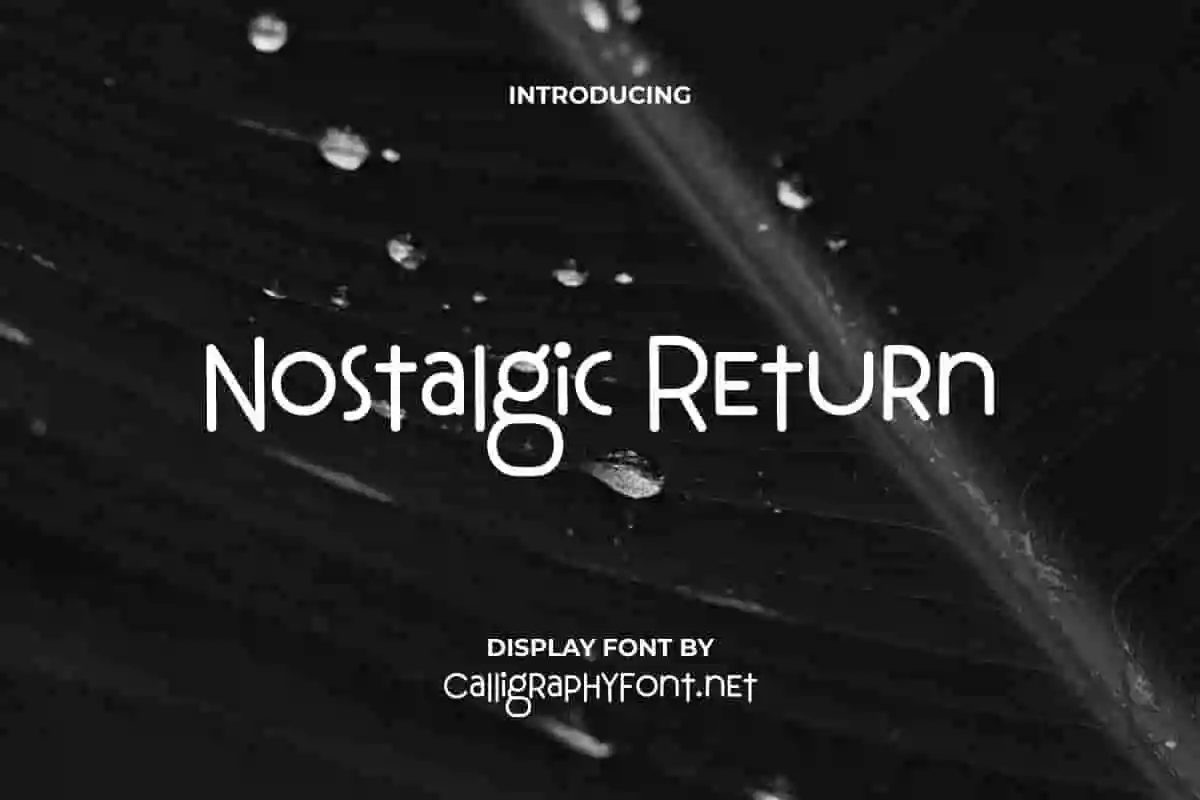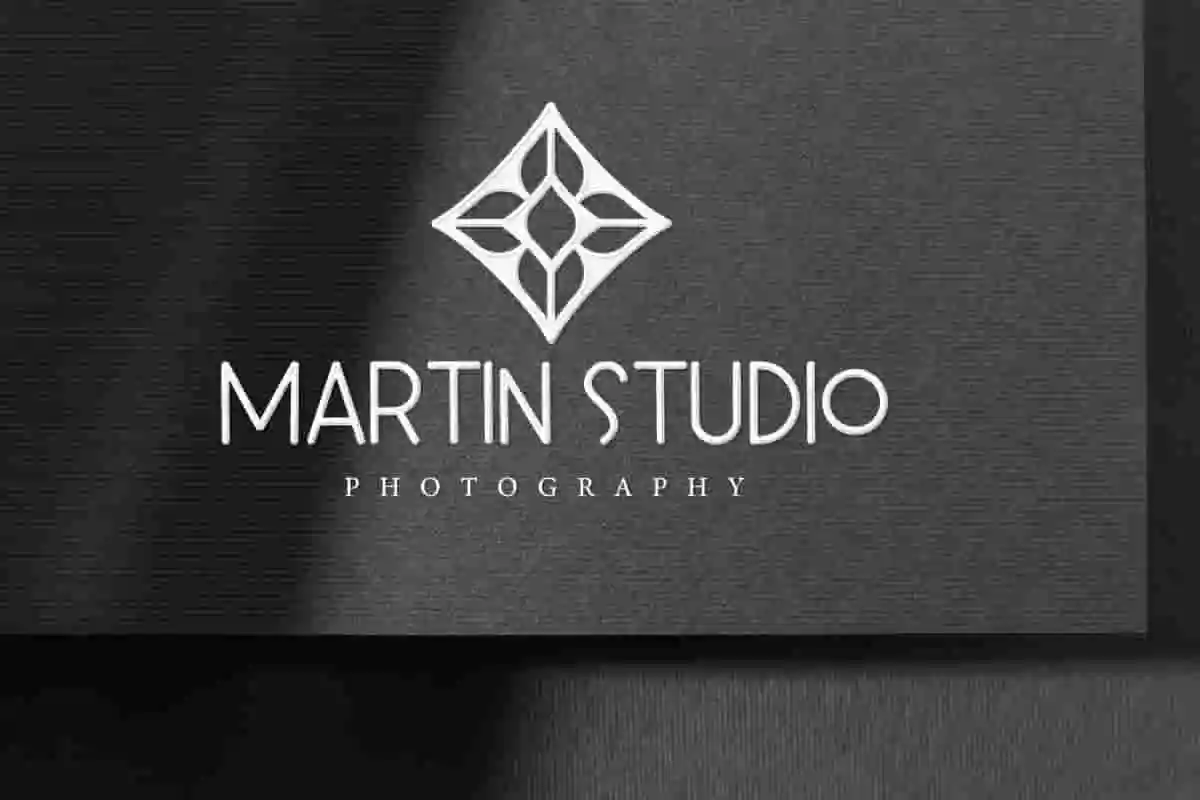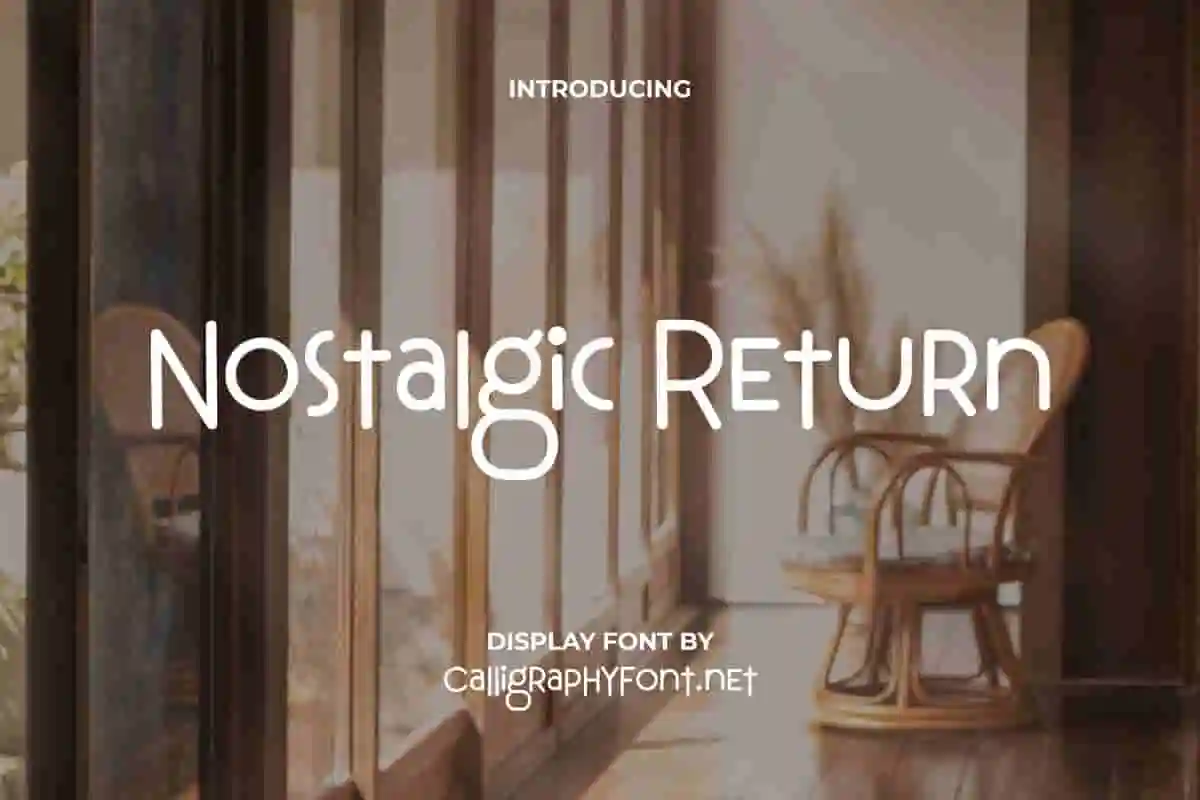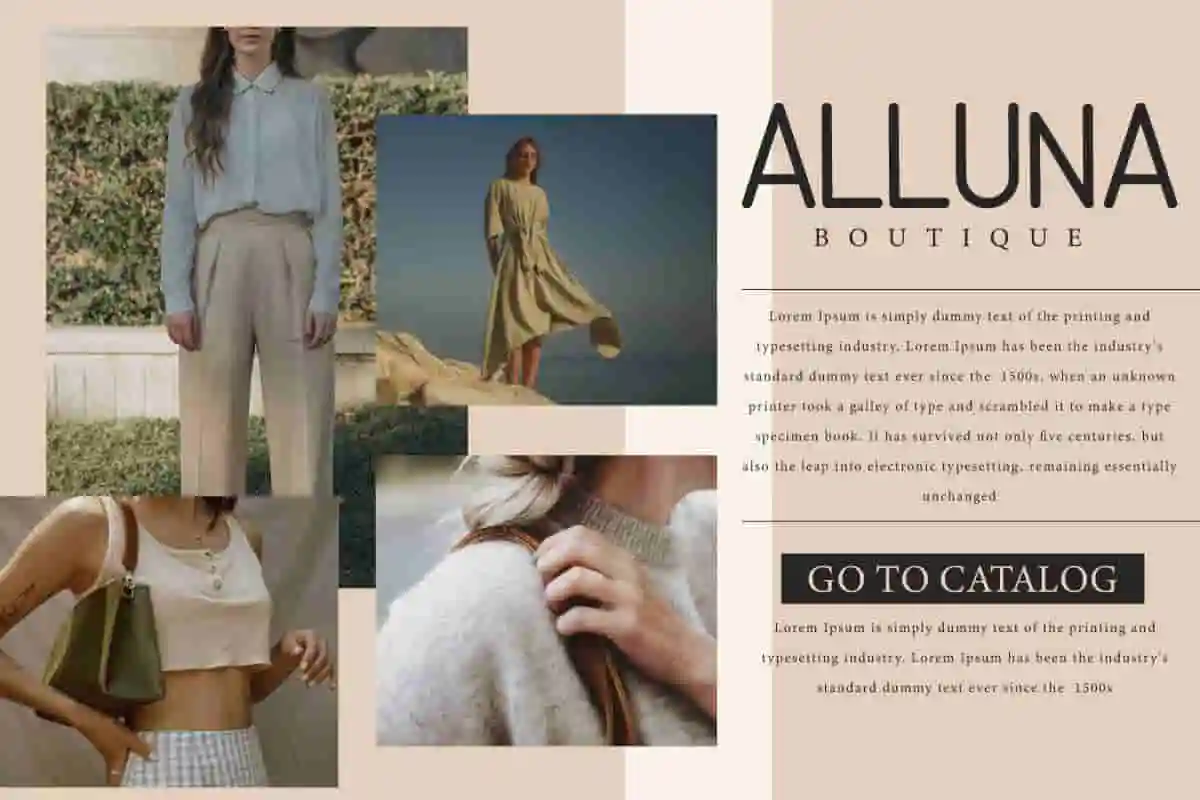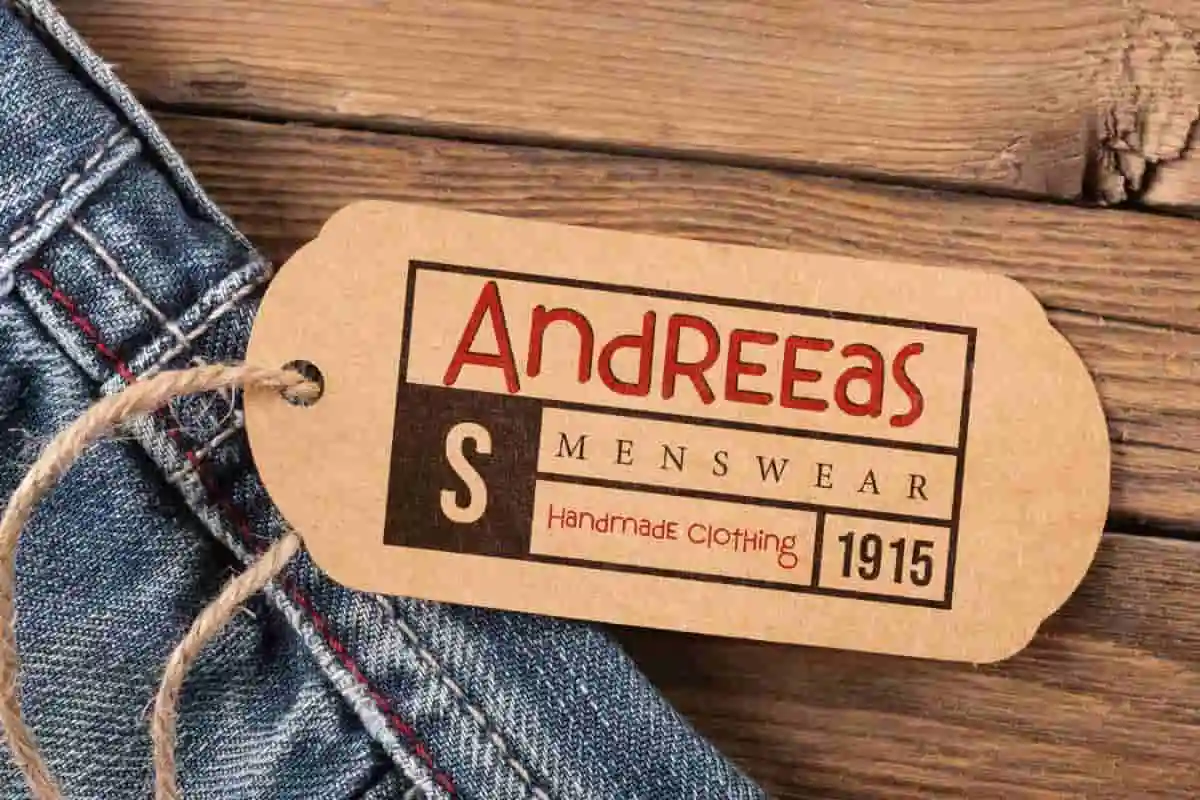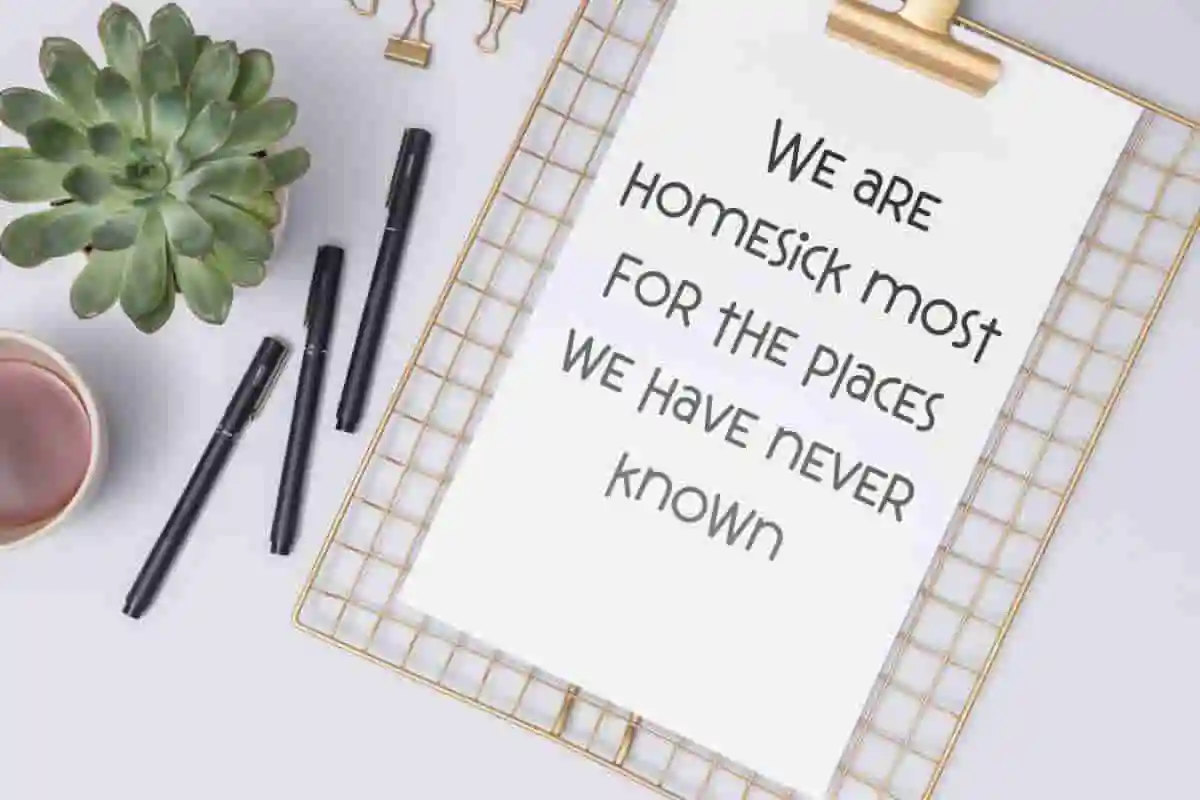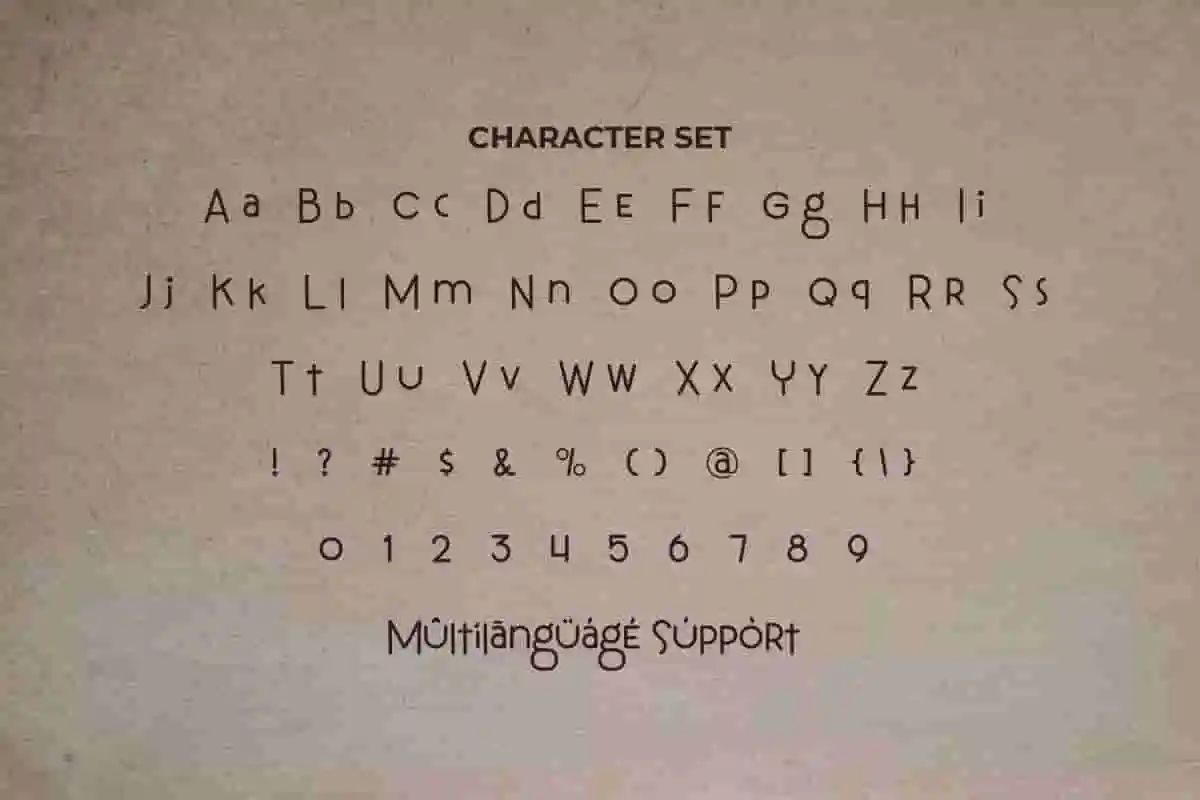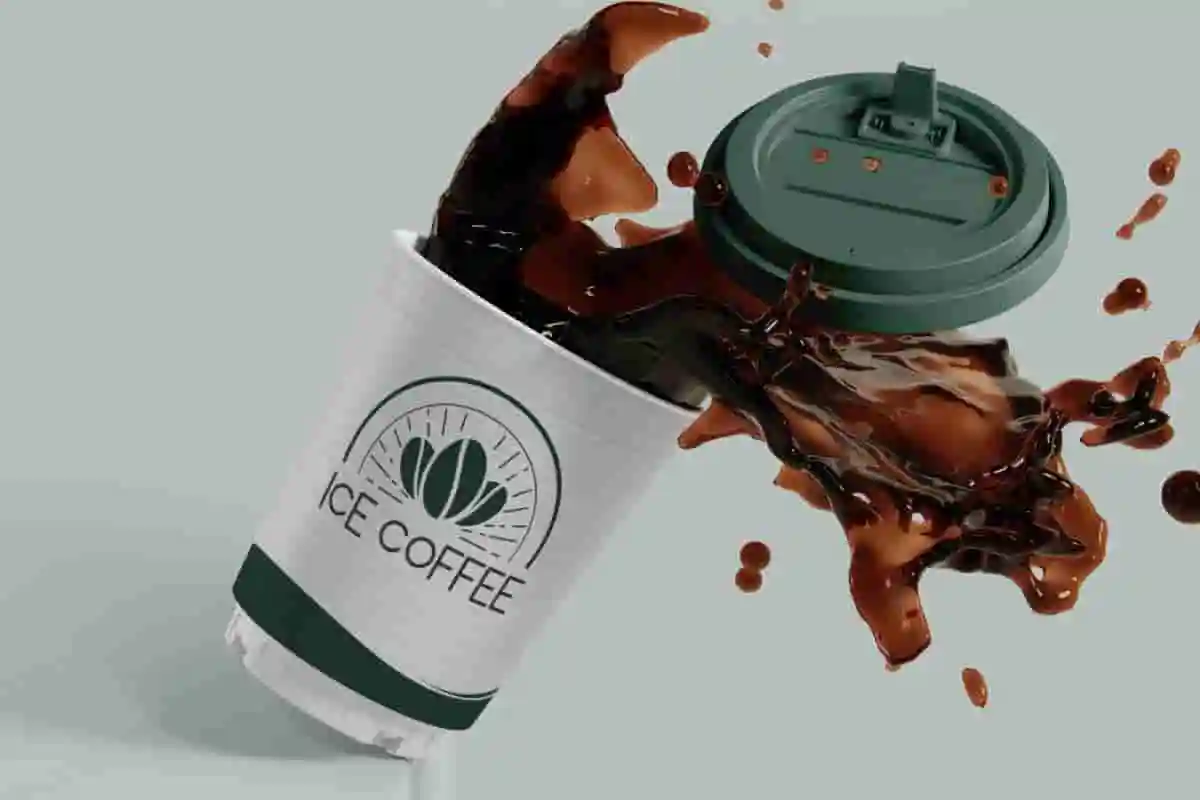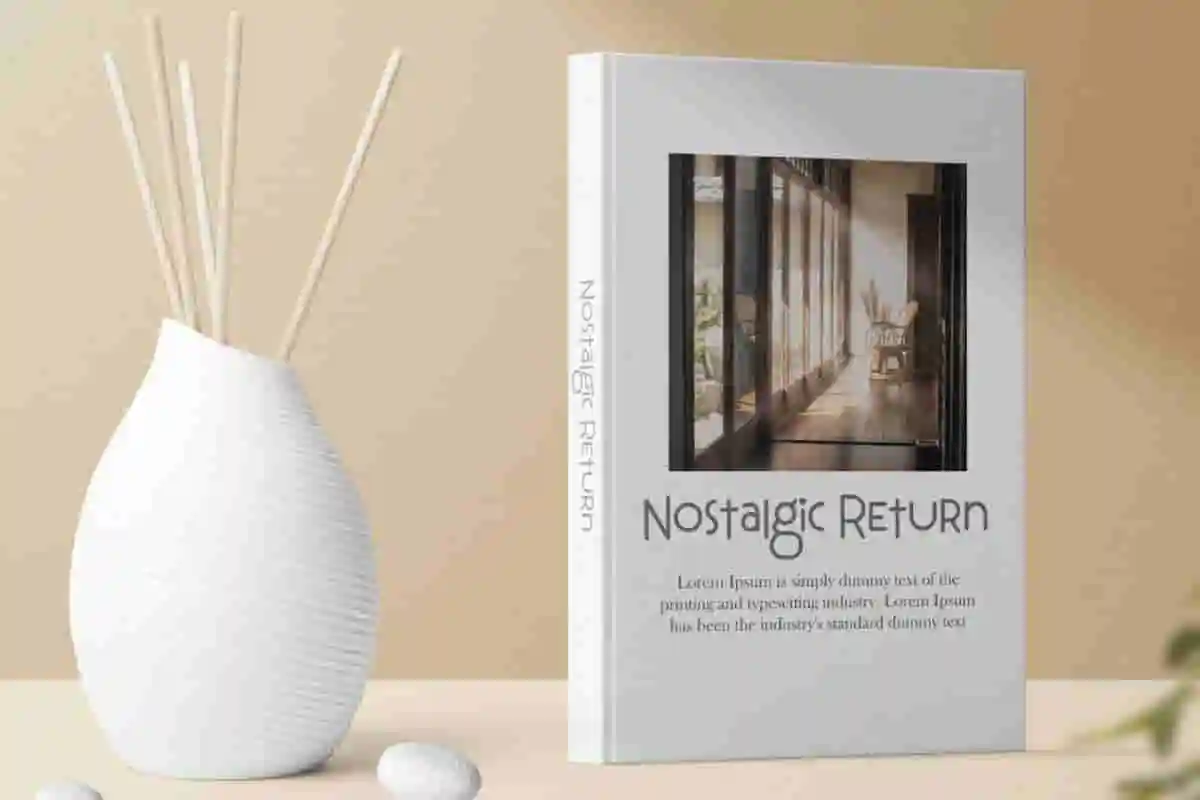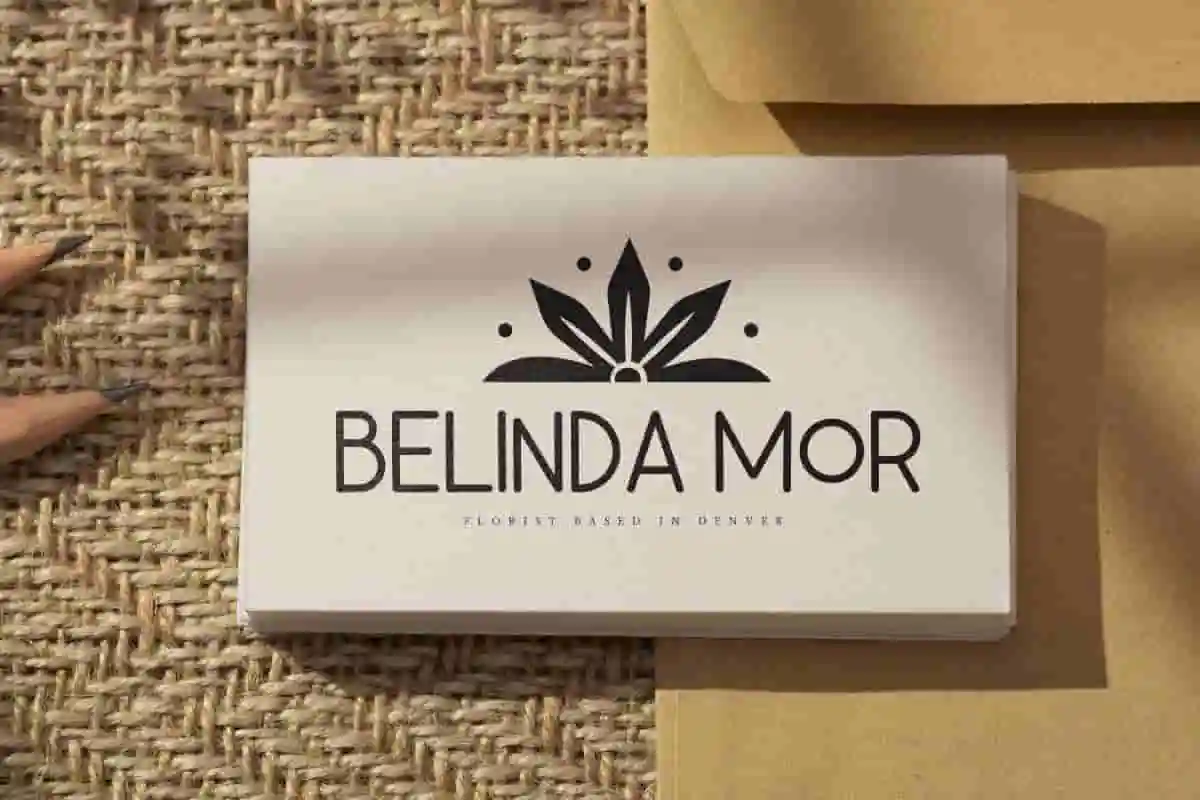
Nostalgic Return Font
Nostalgic Return Font is a fun casual display font with a cute style. This awesome font is perfect for clothing brands, cover design, flower shop, product packaging, and anything that requires an artistic look.
Nostalgic Return Font is a fun casual display font with a cute style, special created by CalligraphyFonts. It gives an authentic touch that makes users of the font nostalgic, perfect for any creative project, such as : business card, catalog, cover, header, label, product packaging, stationery, website, etc.
Step into a world of classic charm and refined beauty with Nostalgic Return Display Font—a typeface that blends vintage inspiration with modern versatility. Designed to evoke emotion and sophistication, this font is the perfect choice for projects that demand a touch of elegance and a lasting impression.
The Nostalgic Return Display Font features smooth curves, stylish strokes, and balanced proportions, making it ideal for both digital and print designs. Whether you’re working on wedding invitations, branding, editorial layouts, posters, or social media content, this font adds a sense of heritage and artistry to every detail. Its carefully crafted characters ensure readability while maintaining its nostalgic and decorative flair.
Perfect for designers, creatives, and businesses seeking to create a luxurious and timeless identity, Nostalgic Return Display Font adapts beautifully across various mediums. From romantic quotes to high-end logos, this typeface elevates your message with elegance and sophistication.
Nostalgic Return Display Font will be perfect for any industry, such as antique store, boutique, café, clothing brand, florist, furniture, photography, publishing, restaurant, yoga studio, writer, and anything that requires a special look. It presents an aesthetic font that is perfect in form and legibility, making it a great choice for any creation.
Nostalgic Return Display Font comes with a full set of Uppercase and Lowercase Basic Characters, Number, a large range of Punctuation and Symbol, also supports multilingual characters. Ready to use both on Windows machine or Mac with simple installations. It’s tested to work well in the Adobe Apps (Illustrator, Adobe InDesign, Adobe Photoshop) CorelDraw, and others. PUA Encode Characters means you can access all the characters easily – Fully accessible without additional design software.